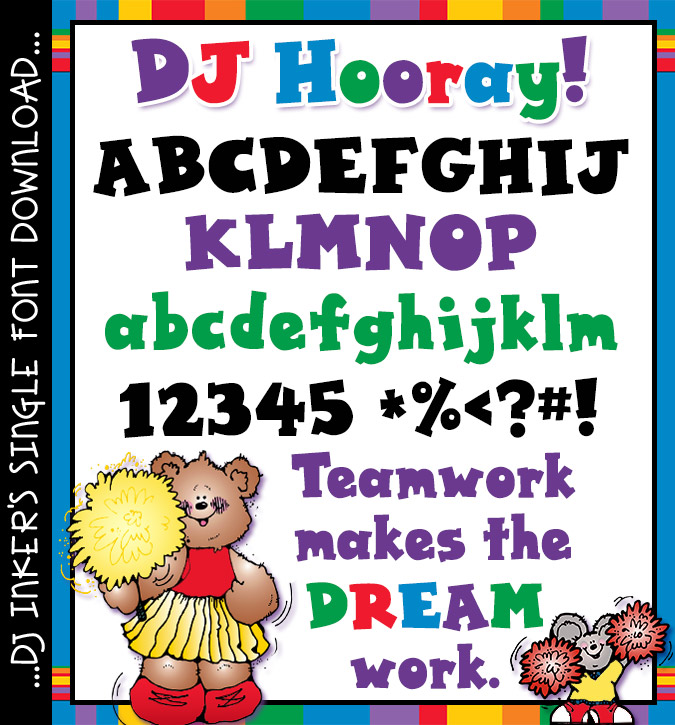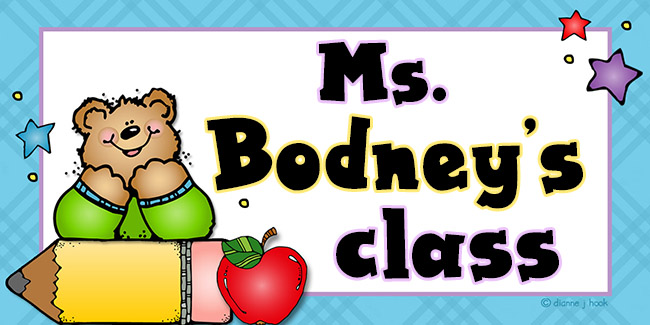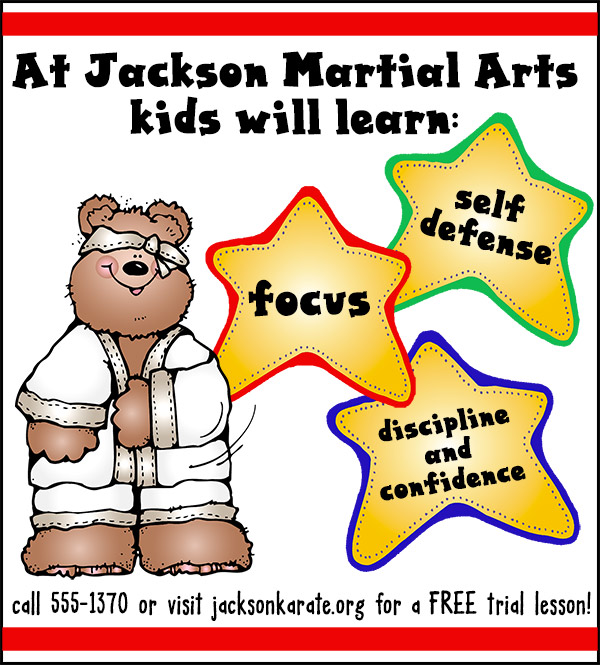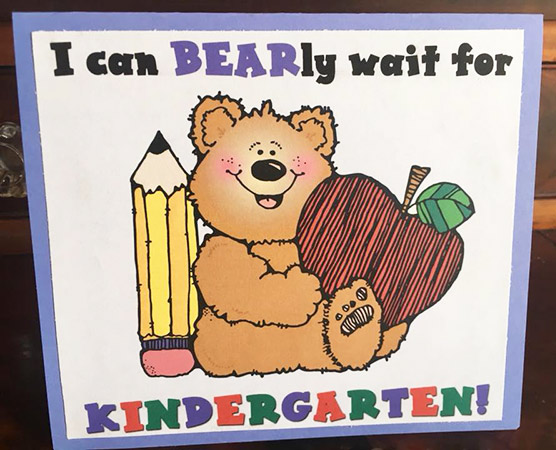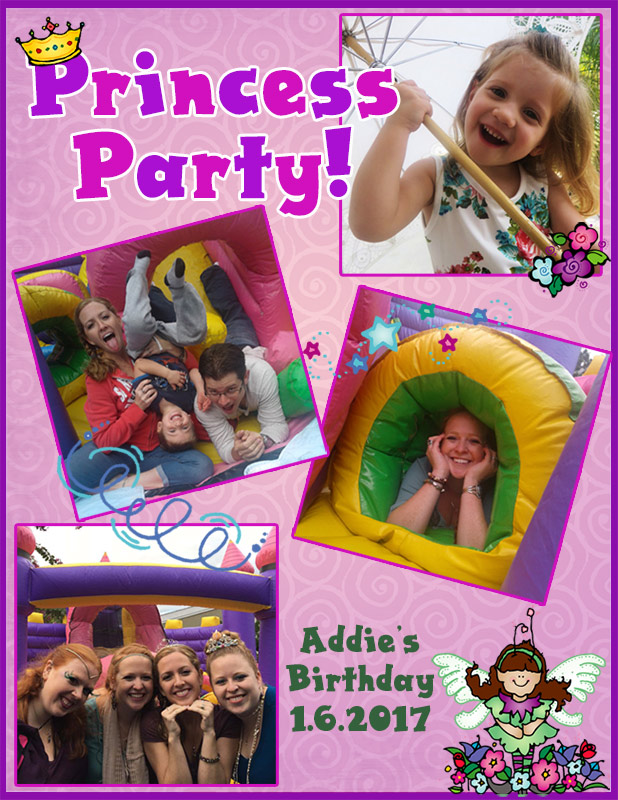
You're sure to say "hip-hip-hooray" for this fun, bold poster block font by DJ Inkers. DJ Hooray will be excellent for typing-up smiles for schools and sports, party time projects, announcements, posters and more! Plus, this versatile headline font looks great in any size or color.